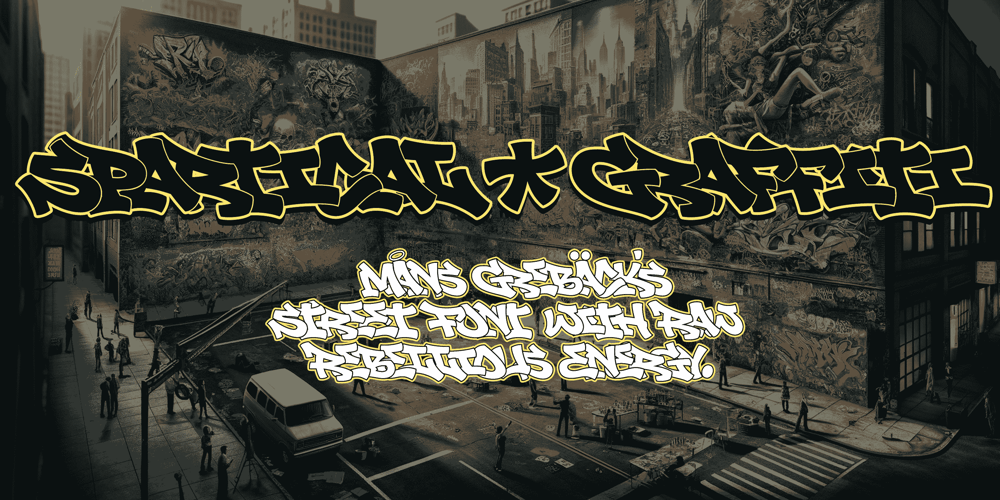
Spartical Graffiti Font Family was designed by Måns Grebäck and published by Mans Greback. Spartical Graffiti contains 7 styles and family package options. Spartical Graffiti is a heavy overlapping graffiti font. This street art font captures the raw energy and vibrant spirit of hip hop culture, embodying its rebellious essence and bringing it to life through dynamic lettering and heavy, impactful strokes. Activate contextual ligatures to make the letters overlap! Google: software name + contextual alternates. The bold and lively presence of each character in this font mimics the authenticity of graffiti pieces found on city walls, making it perfect for projects that aim to capture the genuine look of street art. It is created with love for youthful freedom and creative vibrancy. Spartical Graffiti theme music: https://www.youtube.com/watch?v=oquWYuwE_y8 The font is built with advanced OpenType functionality and guaranteed top-notch quality, containing stylistic and contextual alternates, ligatures and more automatic and manual features; all to give you full control and customizability. It has extensive lingual support, covering all Latin-based languages, from North Europa to South Africa, from America to South-East Asia. It contains all characters and symbols you’ll ever need, including all punctuation and numbers. Designed by Mans Greback, Spartical Graffiti stands as a tribute to the art form that has shaped urban visual culture. Through this font, Greback channels the essence of graffiti into a versatile typographic tool, offering designers a slice of the street art world’s unparalleled vibrancy and style.